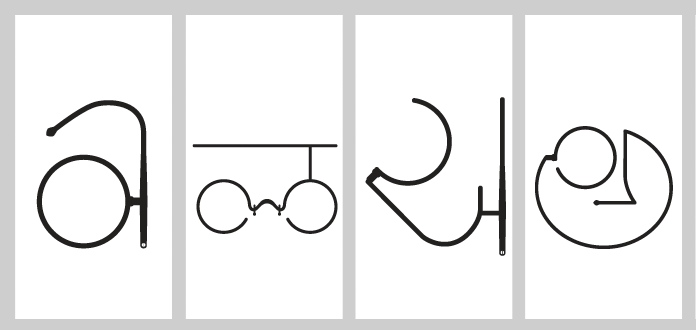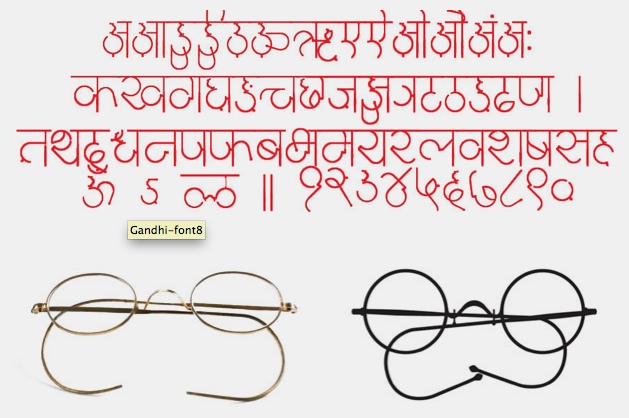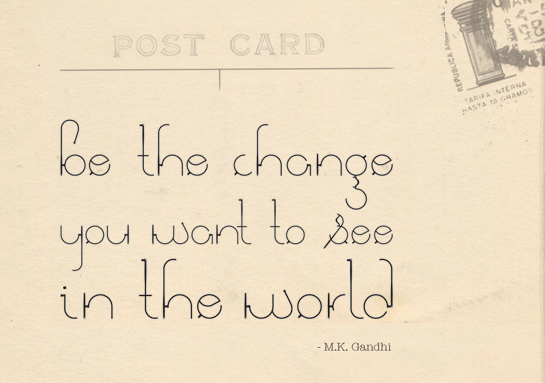
A Typeface Based on Gandhi’s Iconic Spectacles
Leo Burnett India created this font last year to commemorate Mahatma Gandhi’s 141st birthday.
When KV "Pops" Sridhar, national creative director of Leo Burnett India, wanted to capture the graphic essence of Gandhi in a commemorative typeface for the 141st anniversary of his birth, the choice was clear: go with the glasses. (Besides Woody Allen, is there any other iconic figure so instantly identifiable by his eyewear?) The Indian leader's classy glasses had the perfect combination of forms and shapes to build a font out of -- more than a dozen fonts, in fact.
[The Gandhi font formatted for (from left to right) English, Marathi, Gujrati, and Telugu]
According to At Issue, "the glasses symbolize Gandhi's visionary thoughts on truth and nonviolence... Gandhi had originally given the glasses in the 1930s to an Indian army colonel who had asked the great leader for inspiration. Gandhi reportedly gave him his glasses and said, 'These gave me the vision to free India.'"
Sridhar and his team made the typeface free to download in over a dozen languages on the official website. The English version has a slightly awkward bubbly look for certain letterforms -- the word "be" in "be the change you want to see in the world" looks oddly (and ironically) like "foe." But the overall crisp, delicate-but-strong letterforms perfectly embody the philosophy of a man who proved that nonviolence could overpower the most fearsome oppression.